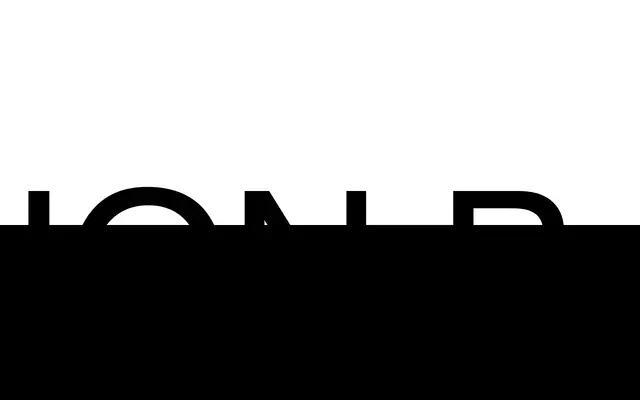
ION B
Setup Type · Ondrej Jób · 2010
A modular display typeface built on the 7-segment LCD display matrix, available in 11 styles from Thin to an ultra-heavy Cells variant.
Constructed from the grid of a classic 7-segment LCD display, ION B offers ten weights from Thin to Black alongside a special Cells style containing containers and boxes for compositional use. The family sits within the ION collection alongside condensed ION A and wide ION C, each sharing the same construction logic. With no stroke contrast and a large x-height, it covers over 100 languages through Basic and Extended Latin, with OpenType features including stylistic sets, discretionary ligatures and fractions.
ION B is explicitly modular and constructed, based on the 7-segment LCD display matrix. Its geometric, no-contrast, narrow construction places it firmly in the display/experimental category rather than any conventional sans-serif classification.